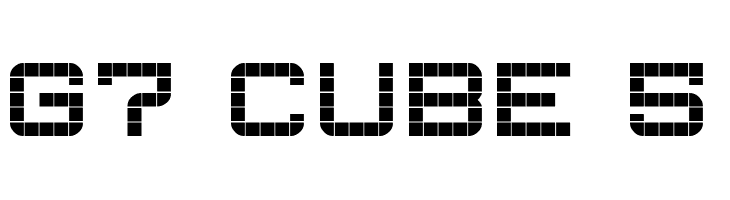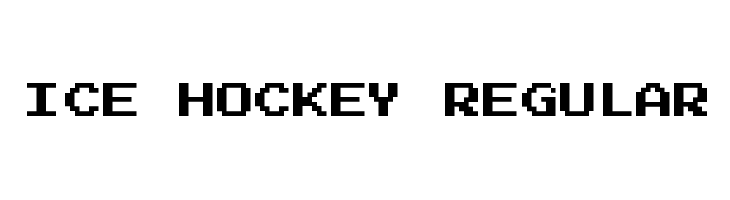
• G7 Cube 5
A pixelated, grid-based font reminiscent of retro digital displays.
• Butterlate
A playful, casual handwritten font with irregular strokes and an organic flow.
• The Impostor Regular
• Metal Plate
A bold, high-contrast serif font with geometric influences and sharp serifs.
• Verilate Reguler
A bold, slightly italicized font with strong, dynamic characters.
• Bromo Plateau Script
An elegant script font with fluid, cursive strokes and high contrast.
• Distillated_PersonalUseOnly
A playful, handwritten font with smooth, flowing lines and a casual style.
• Ice Hockey Regular
A bold, pixelated font with a retro, digital aesthetic.
• Volleyball Regular
• Pcsterry Regular
A bold, pixelated font with a retro, 8-bit digital aesthetic.